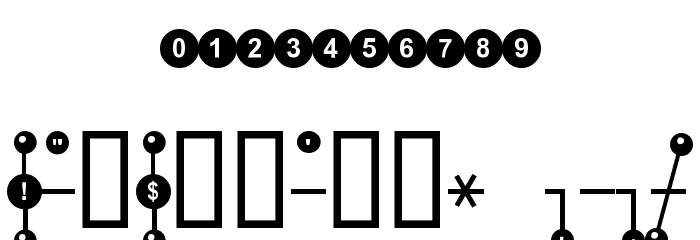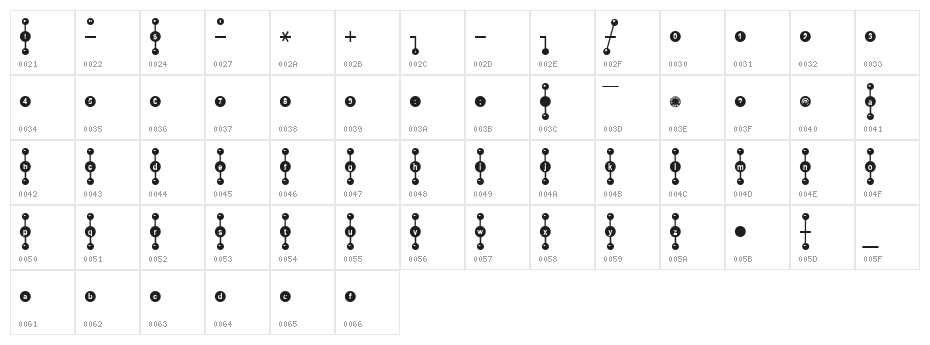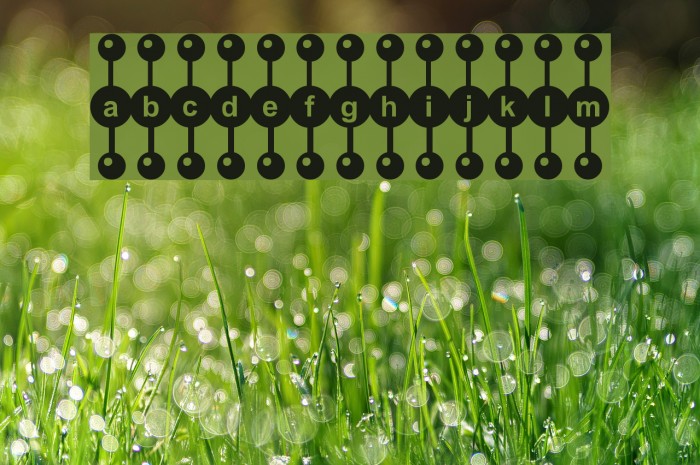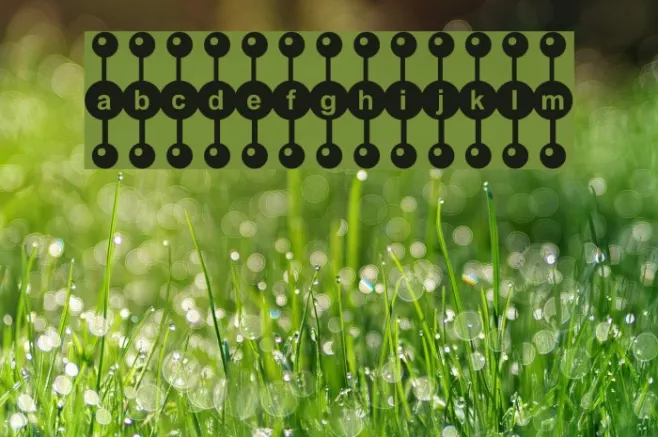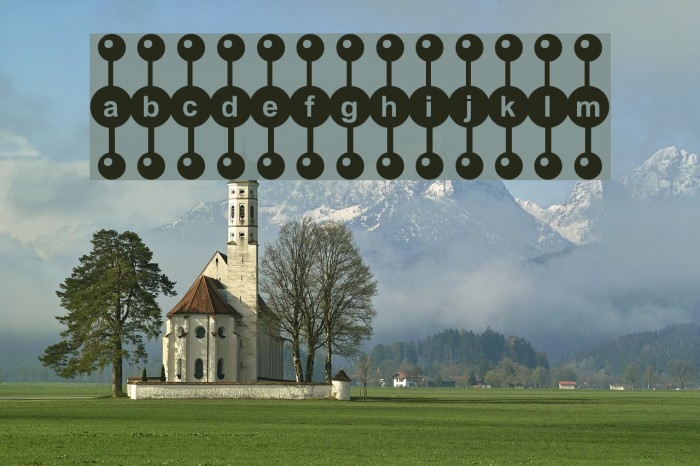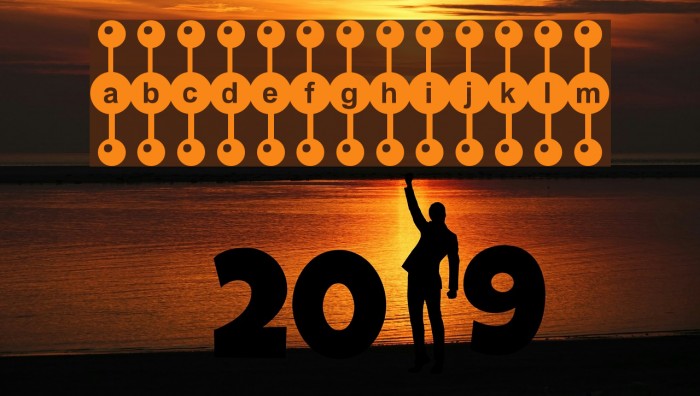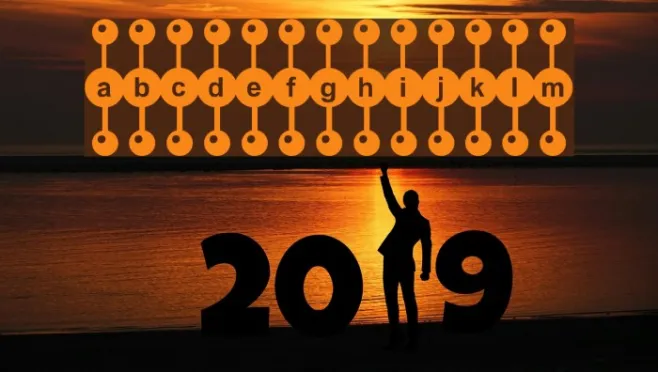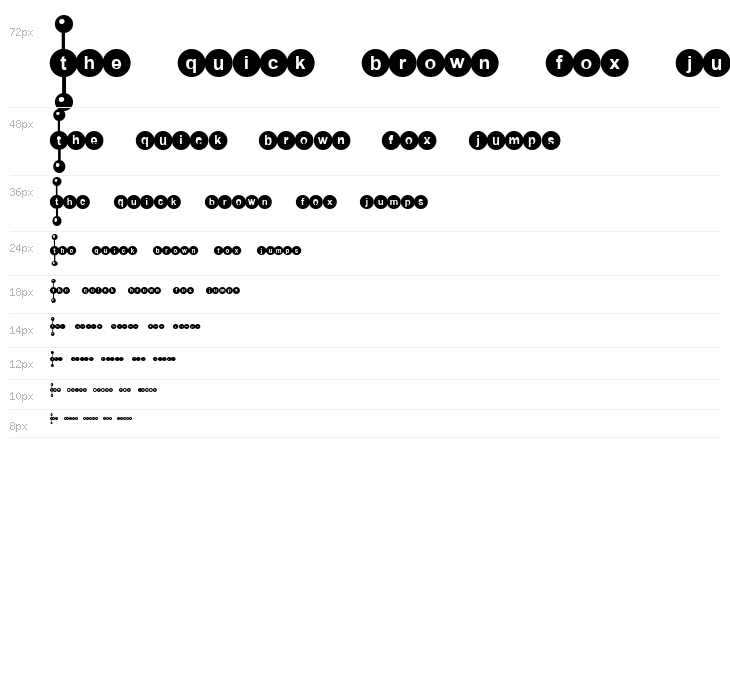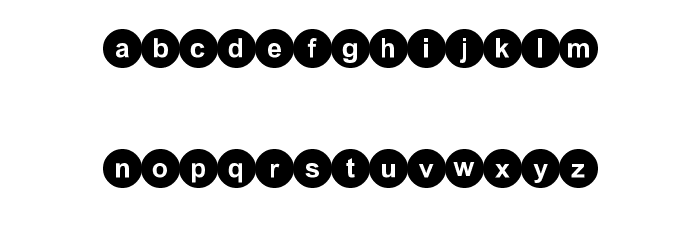
khole Font
khole Description
This font features a unique and playful design where each character is encased in a bold, circular shape. The letters are lowercase, and the numbers are similarly styled, creating a cohesive look. The special characters are also integrated into this circular motif, adding a whimsical touch. The overall appearance is modern and eye-catching, making it suitable for creative projects that require a distinctive and fun aesthetic. The boldness of the characters ensures high visibility, while the consistent circular theme provides a sense of unity across all elements.
| Proposed Projects | Ideal for children's books, playful branding, posters, and creative digital content. |